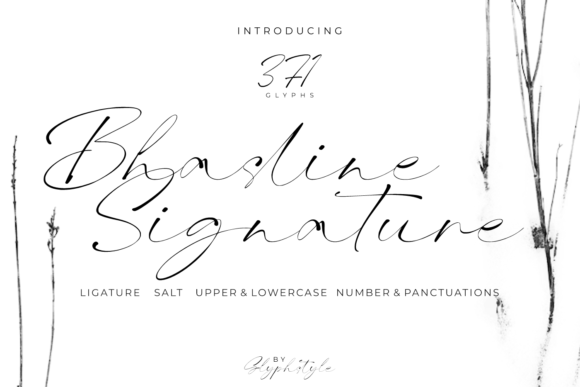
Unleash the Charm of Your Words with Bhasline Font - The Epitome of Elegance and Grace
Journey into the realm of captivating typography with Bhasline Font, a breathtaking script font that dances across your digital canvas with the fluidity of a handwritten masterpiece. Inspired by the art of calligraphy, Bhasline embodies the essence of effortless beauty and timeless sophistication, making it the perfect choice for a multitude of creative endeavors.
Step into a world where your words are transformed into works of art, flowing effortlessly like a gentle stream, capturing the essence of your message with eloquence and charm. Bhasline's natural signature style evokes the intimacy of personal handwriting, infusing your designs with a touch of warmth and authenticity.
Dive into the versatility of Bhasline, a font that seamlessly adapts to a myriad of creative expressions. Whether you're crafting elegant wedding invitations, designing eye-catching logos, or adding a touch of handwritten charm to your social media posts, Bhasline rises to the occasion, effortlessly enhancing your visual creations.
Bhasline's meticulously crafted curves and delicate strokes mimic the allure of ballpoint ink, lending a sense of authenticity and depth to your designs. With its inherent charm, Bhasline breathes life into your branding projects, product packaging, and product designs, leaving an indelible mark on your audience.
Let Bhasline be your creative companion, guiding you through the world of visual storytelling with its captivating presence. Its versatility shines in labels, photography, and watermarks, adding an artistic flair that elevates the ordinary into the extraordinary.
Experience the magic of Bhasline in your invitations and stationery, where its graceful lines and elegant flow create a sense of occasion, transforming every event into a cherished memory. Bhasline is not just a font; it's an expression of your individuality, a reflection of your unique style.